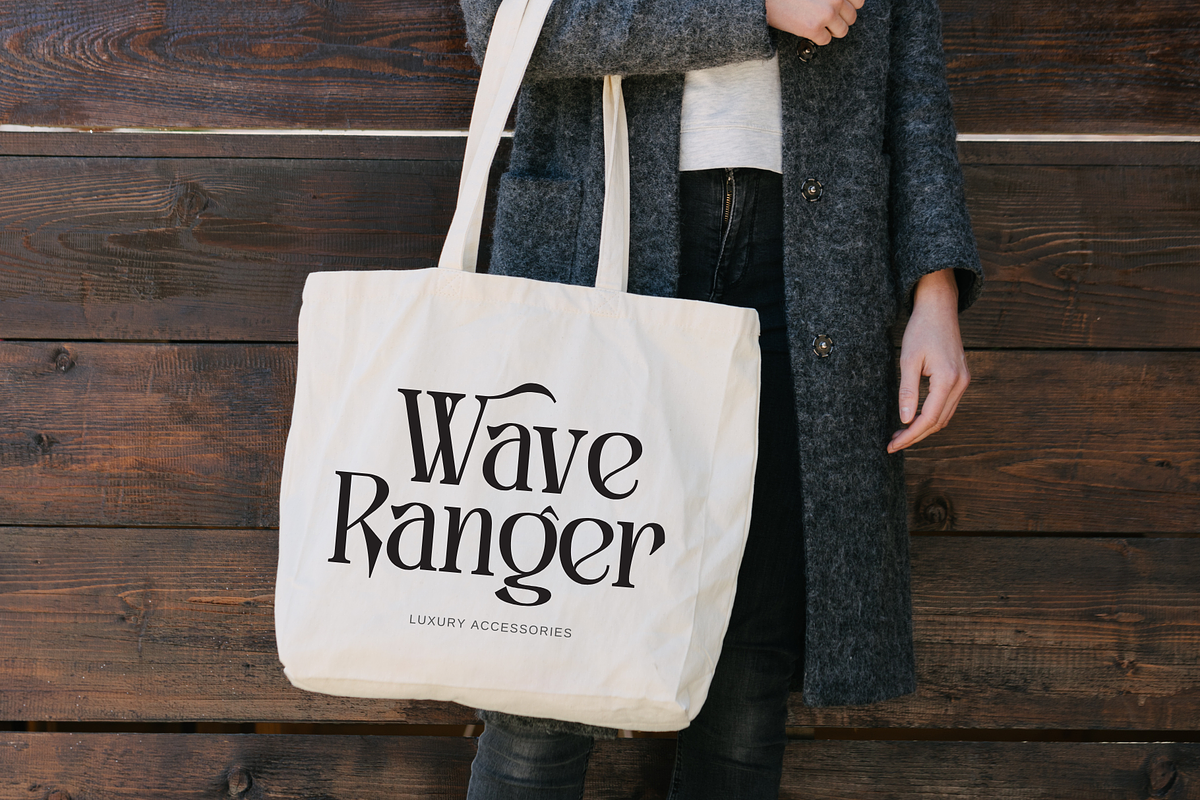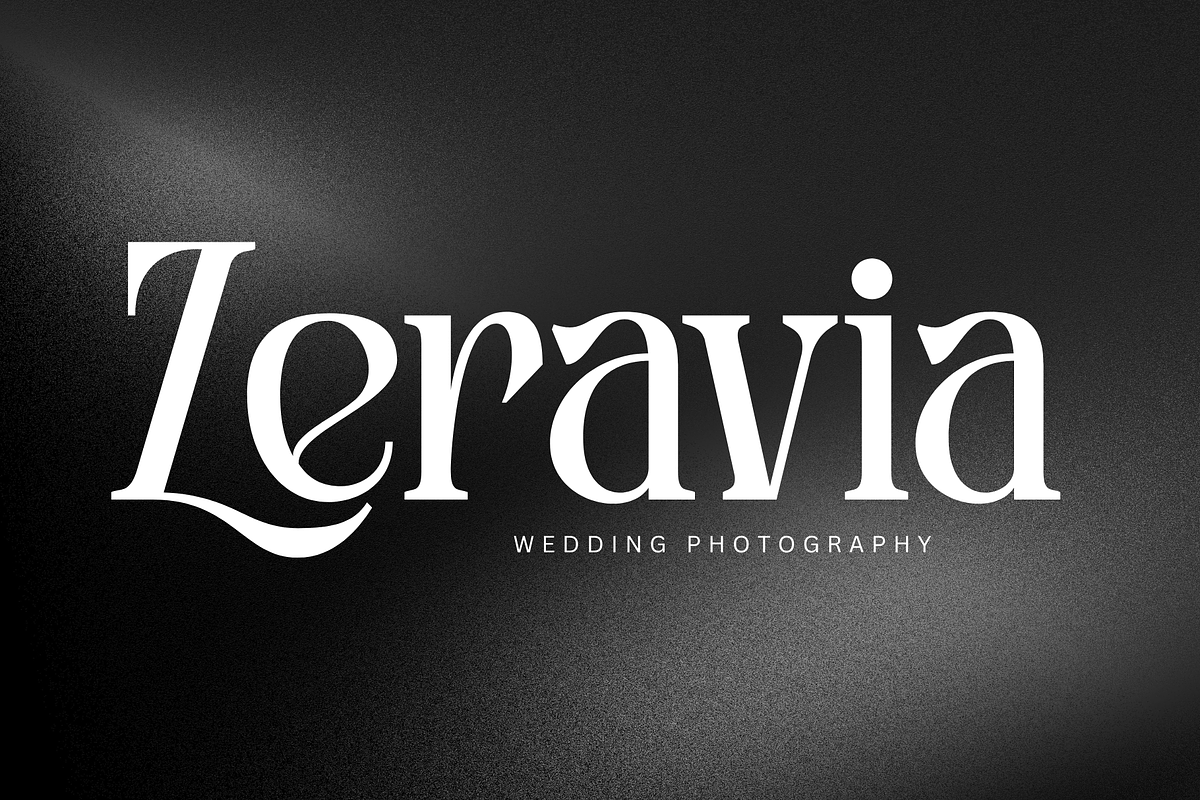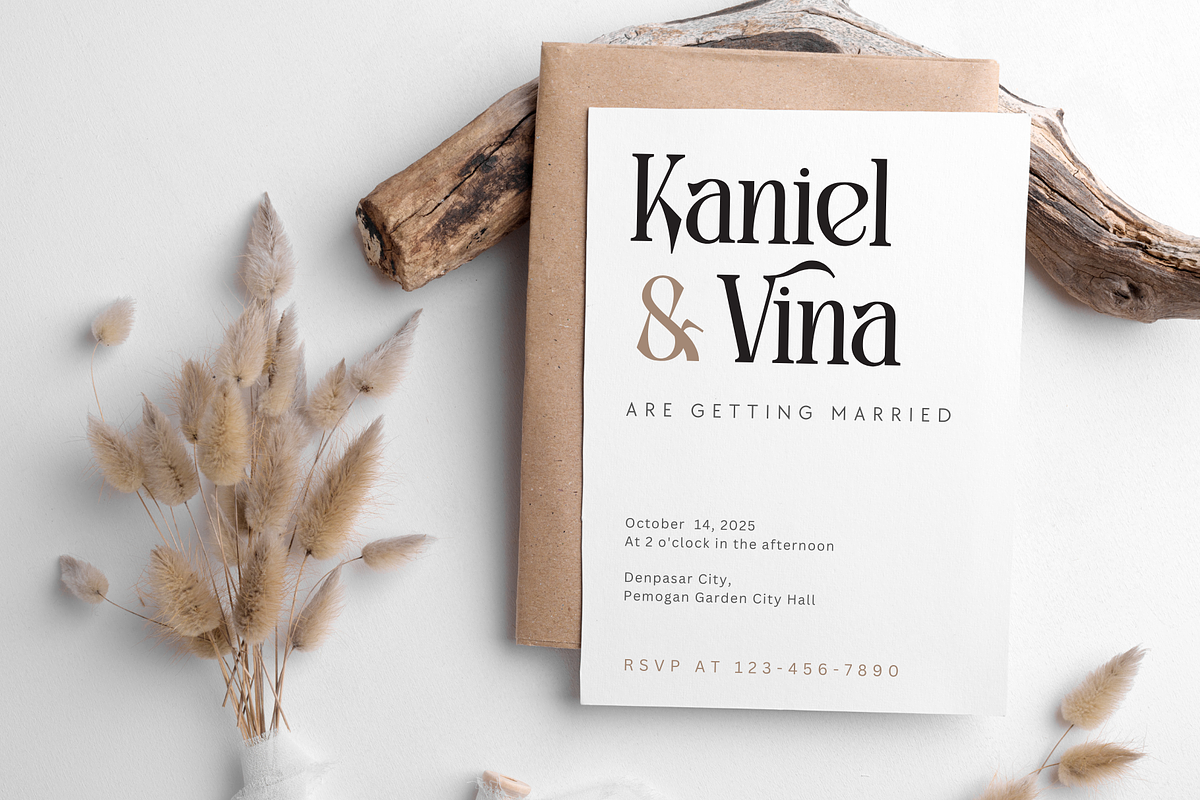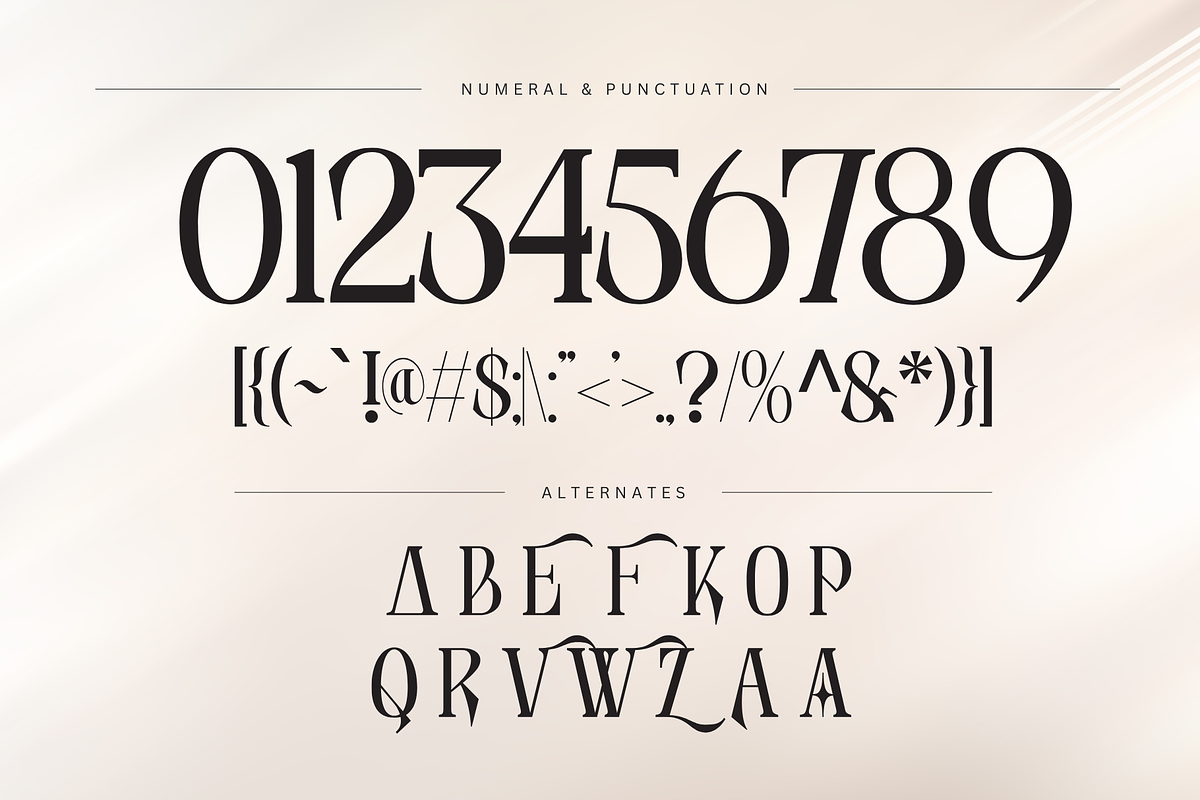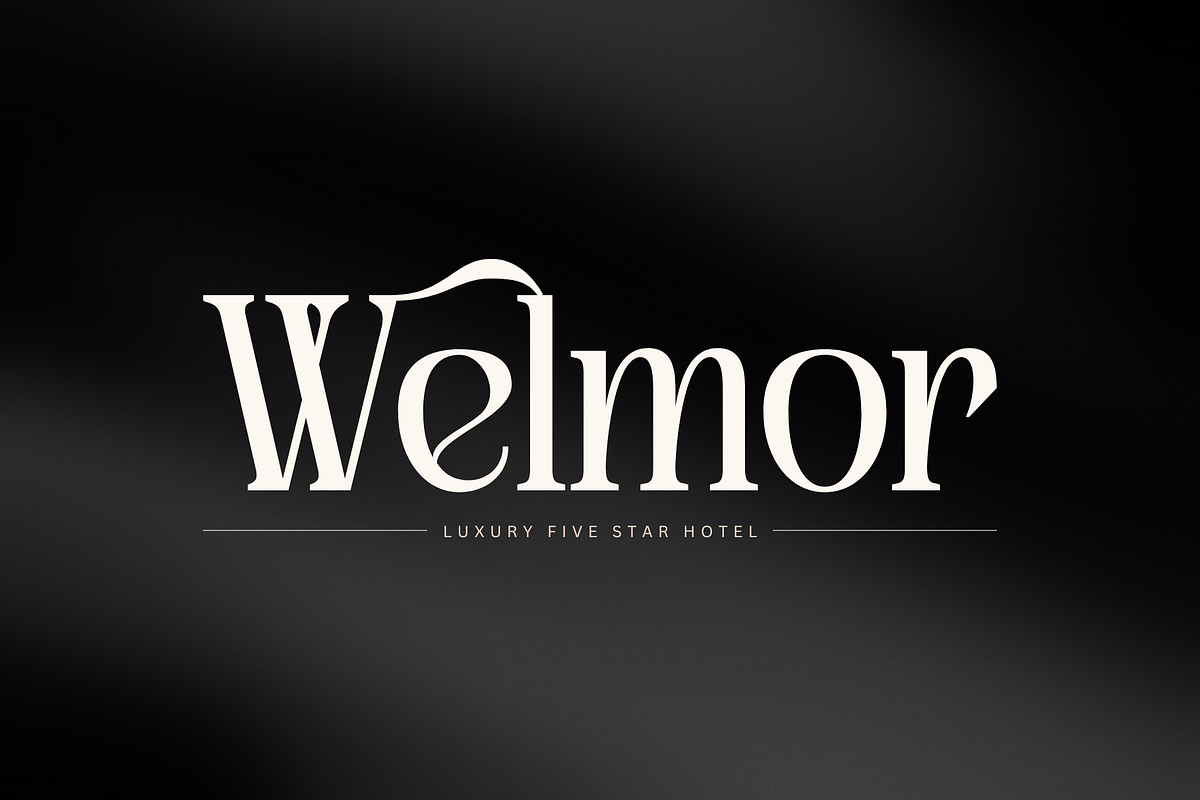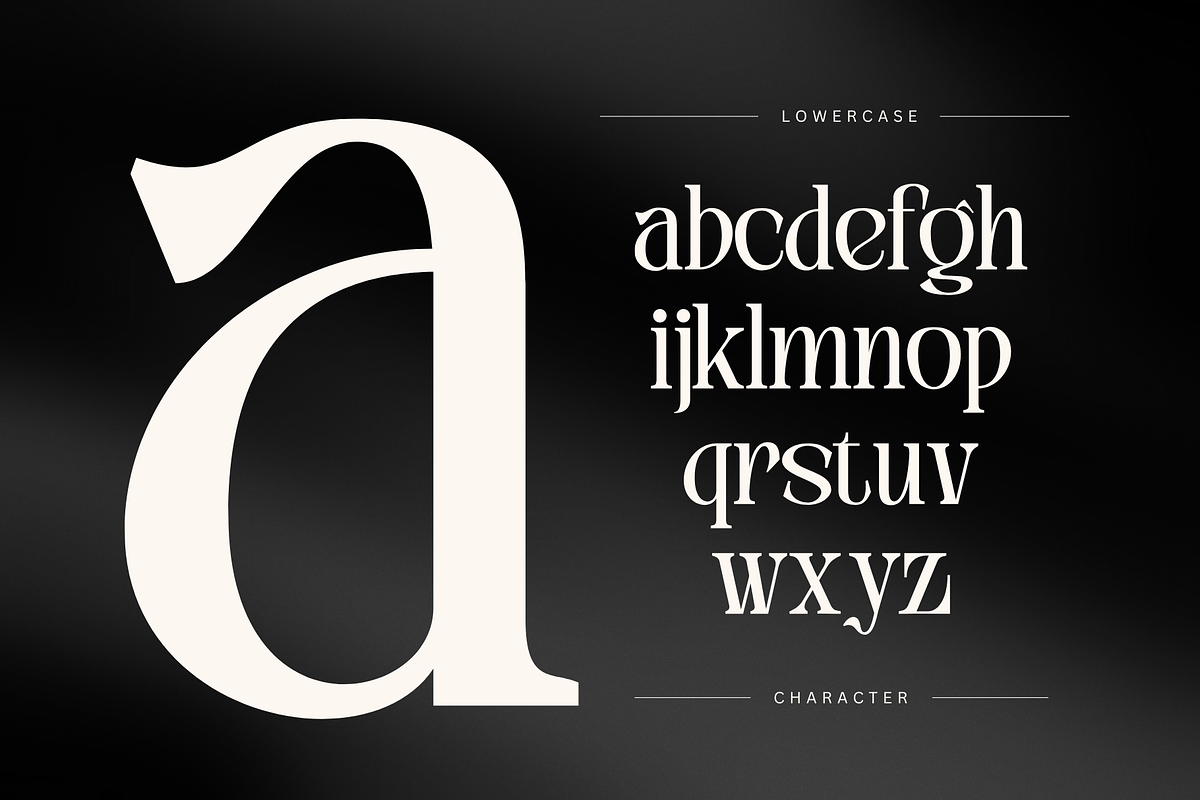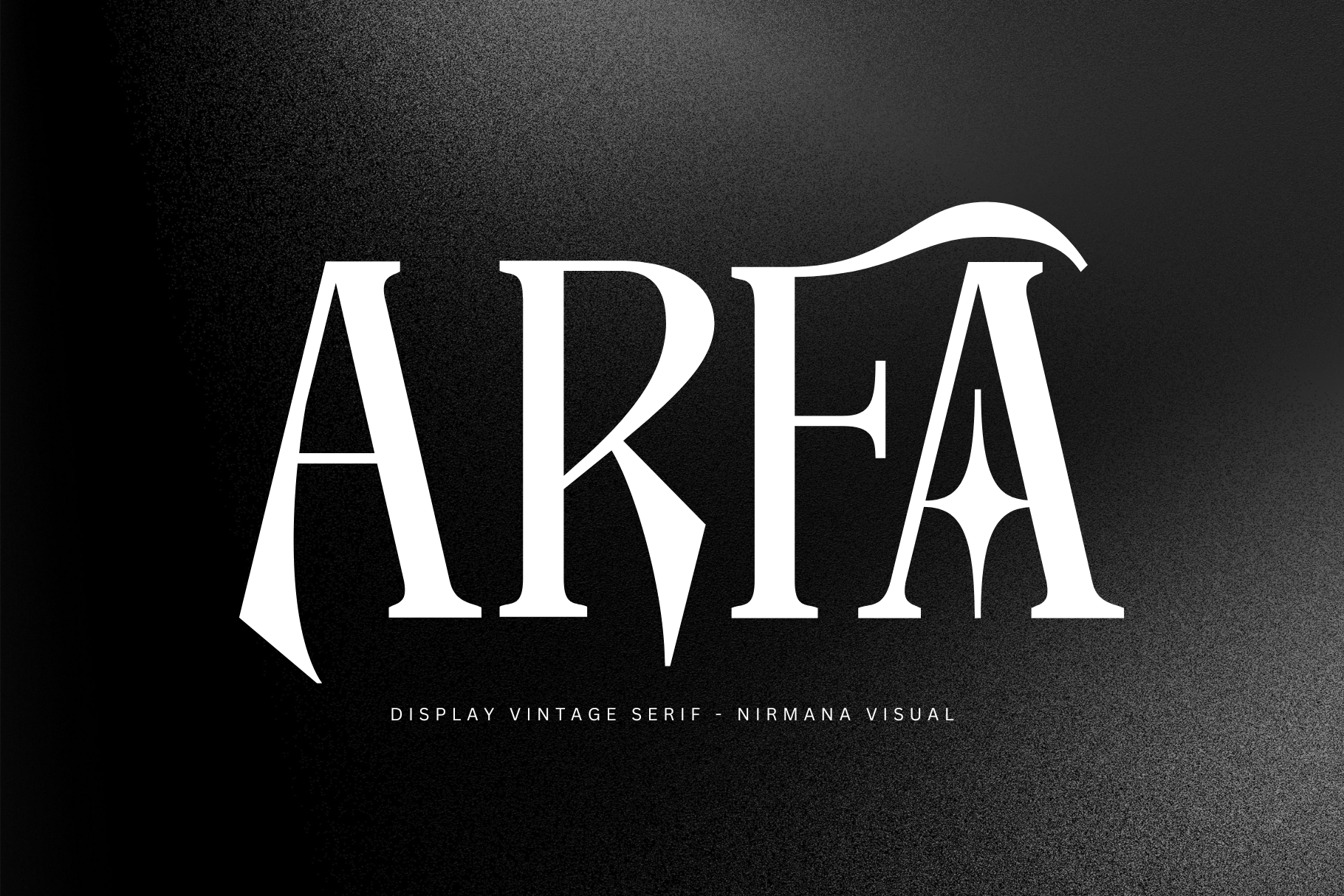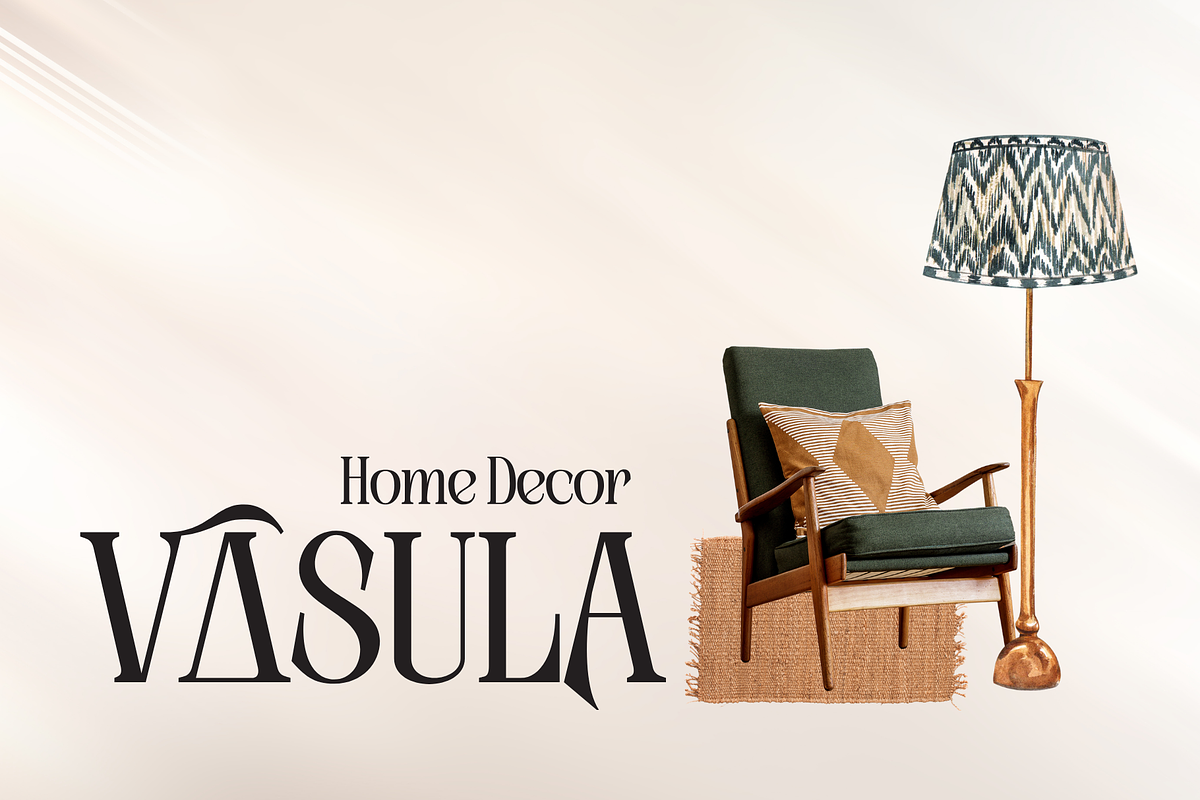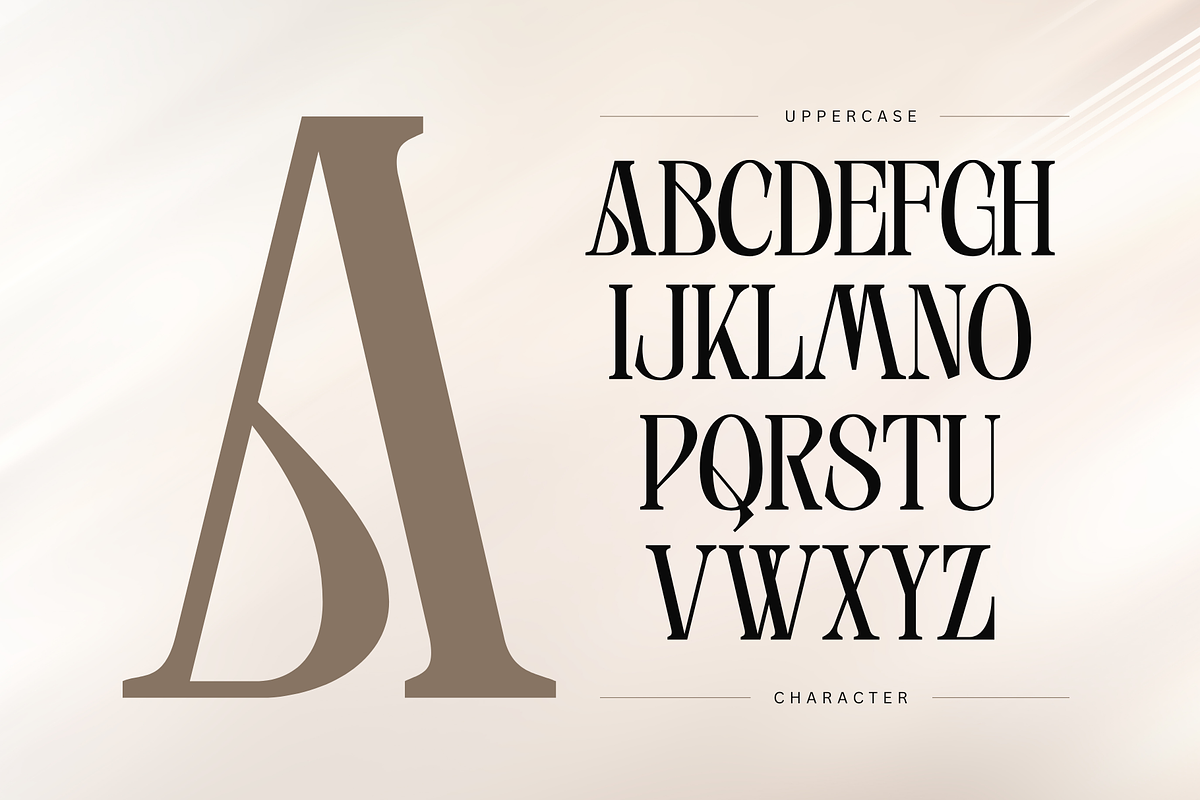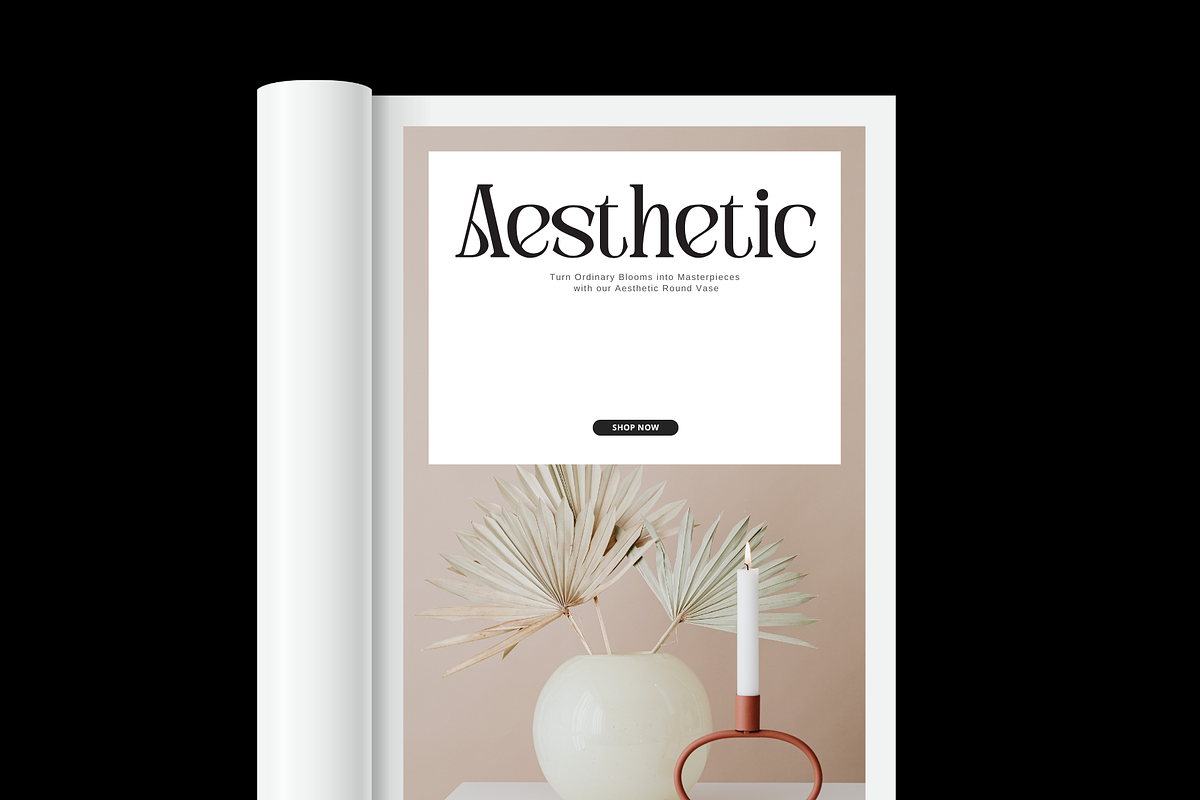
Arfa Vintage - Branding Logo Font
Arfa Vintage is a timeless serif font that blends classic charm with modern elegance. Featuring both Regular and Italic styles, it’s perfect for logos, branding, packaging, and editorial designs. With refined curves and vintage-inspired details, Arfa Vintage brings a touch of sophistication and heritage to any project. Ideal for those who seek a strong, stylish identity with a nostalgic flair.